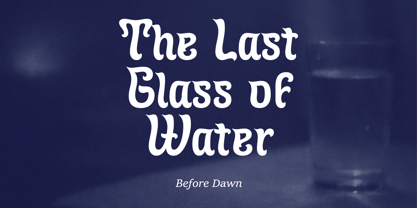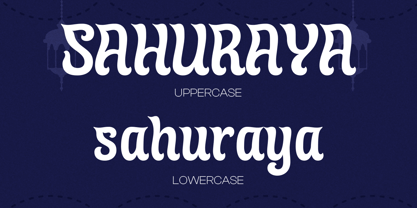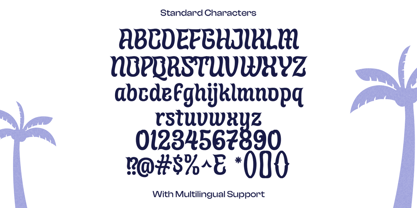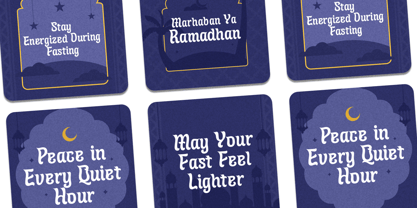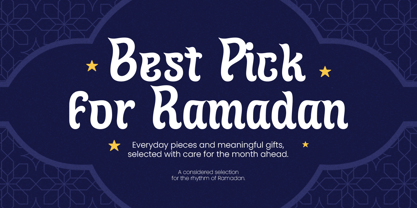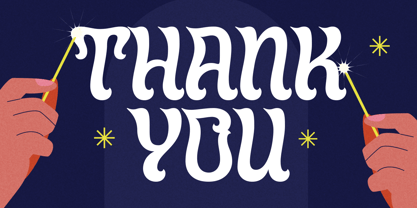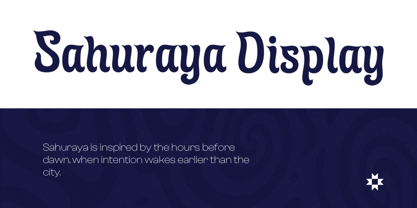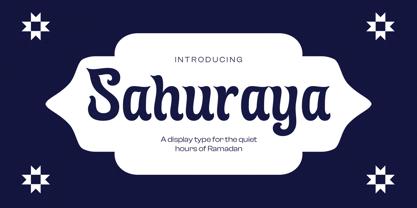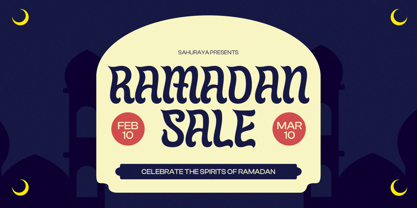
Sahuraya
by Letterhend
The Sahuraya Font Family was designed by Hendry Juanda and published by Letterhend. Sahuraya contains 1 styles. More about this family
Sahuraya is a refined display typeface with soft curves, elegant serifs, and balanced proportions that feel calm and graceful. Its vibe is quiet, classic, and slightly traditional, making it well suited for Ramadan visuals, cultural events, invitations, posters, packaging text, branding projects, and editorial layouts that need a gentle yet distinctive presence. Features : Uppercase & lowercase Numbers and punctuation Alternates & Ligatures Multilingual Support PUA encoded
Designers: Hendry Juanda
Foundry: Letterhend